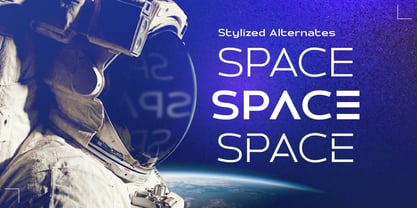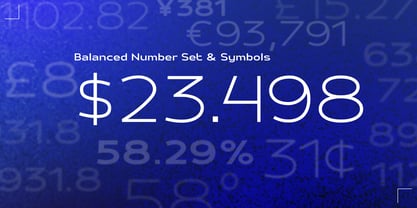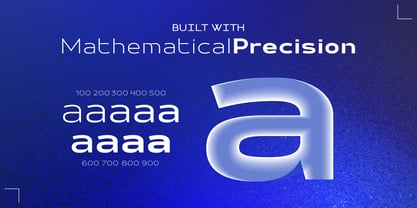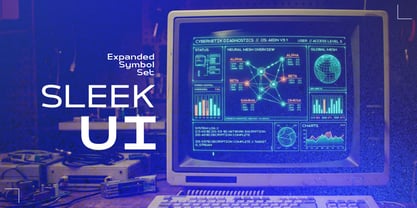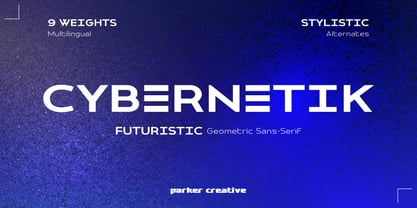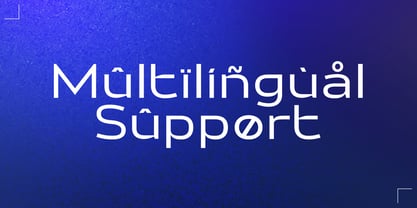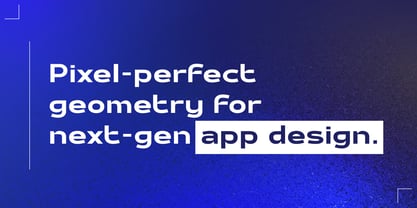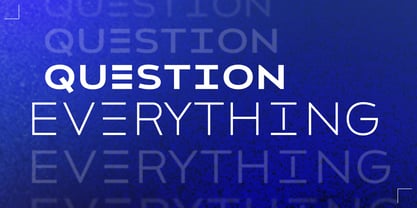
Cybernetik
by Parker Creative
Engineered with precision and unmistakable presence, Cybernetik is a premium wide geometric sans-serif typeface designed for the modern digital frontier. Designed for futuristic designs, Cybernetik is an extended typeface that delivers a powerful visual impact without ever sacrificing functional legibility.
Whether you are designing a UI for a mobile application, branding a new tech startup, or creating cyberpunk themed graphics, Cybernetik provides a structural foundation your project’s demands. Its ultra-wide letterforms and precise angular geometry naturally command negative space, giving your headlines, logos, and digital assets an authoritative, high polish aesthetic.
Cybernetik also comes with some ultra futuristic stylistic alternatives for a number of capital letters to help you push your designs further right out of the box. Additionally, Cybernetik includes a robust set of accented characters and diacritics covering Western, Central, and Eastern European languages.
Great applications for Cybernetik include:
Automotive Branding: Car exterior badging, dealership marketing, motorsport liveries, and racing game UI.
Technology & UI/UX: App interfaces, website headers, data-dense HUD elements, and software dashboards.
Sci-Fi & Entertainment: Movie posters, esports team logos, cyberpunk concept art, and streetwear graphics.
Corporate Identity: Clean, impactful logotypes for tech startups and aerospace manufacturing firms.